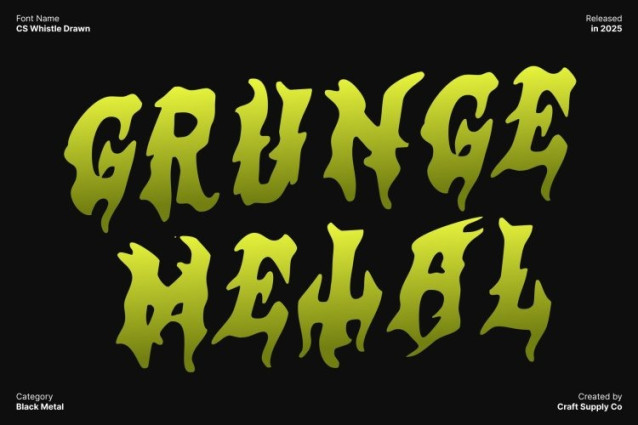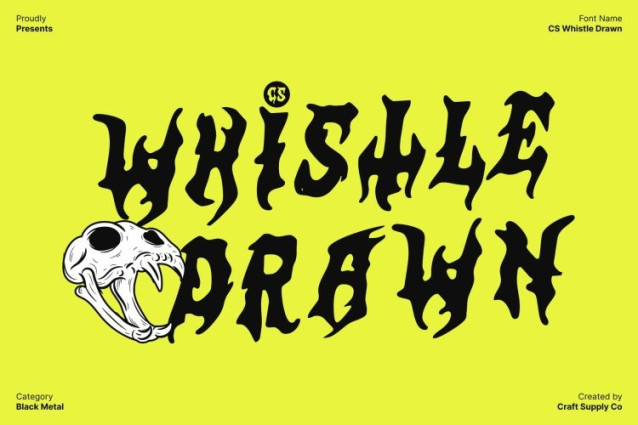
CS Whistle Drawn Font
CS Whistle Drawn Font This is a black metal font designed to capture raw intensity and uncompromising energy. Its jagged spikes, chaotic strokes, and angular shapes create a sense of darkness and power, making every letter visually striking. The font conveys a bold and aggressive aesthetic that instantly communicates extreme and edgy themes.
Drawn Effect for Artistic Texture
The drawn effect adds a handcrafted, textured feel to this font, enhancing its chaotic and expressive character. Each letter gains a unique artistic touch that emphasizes movement and energy, transforming the font into more than just text it becomes a visual statement. The texture amplifies the raw, rebellious vibe that black metal aesthetics demand.
Perfect for Band Logos, Posters, and Edgy Projects
This font excels in applications where intensity and attitude are key. From band logos and album covers to concert posters and alternative branding, this font commands attention and reinforces a sense of darkness and drama. Its aggressive forms and textured finish make it ideal for any creative project aiming to push boundaries.
Capture the Spirit of Extreme Music
This font combines raw design with expressive texture, perfectly embodying the spirit of extreme music. It transforms conventional letterforms into a bold, chaotic, and artistic display. Designers can rely on it to convey intensity, rebellion, and energy, making every project unforgettable and visually impactful.